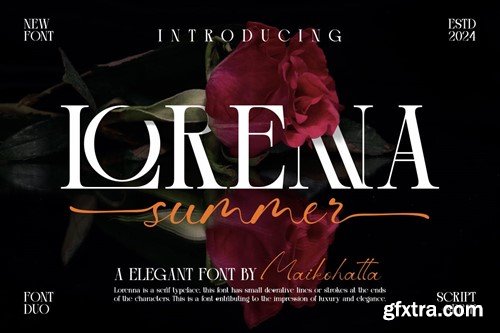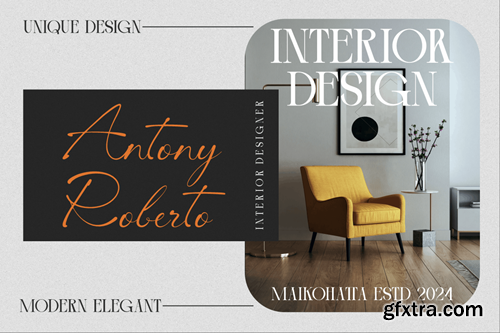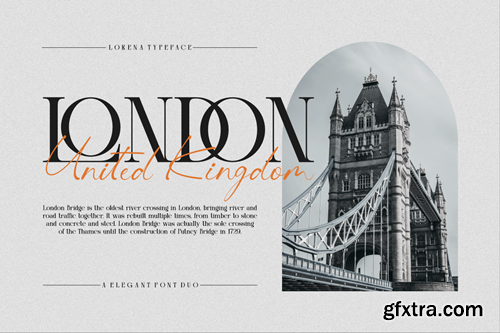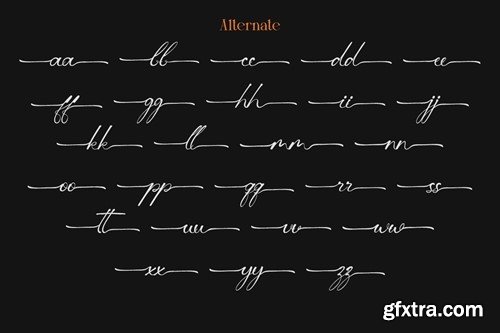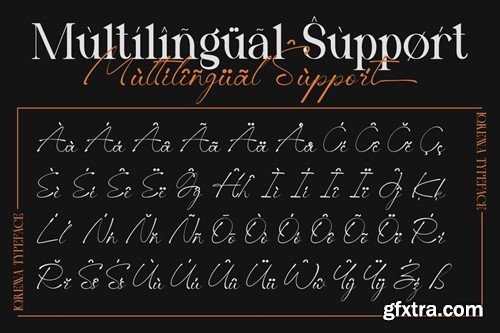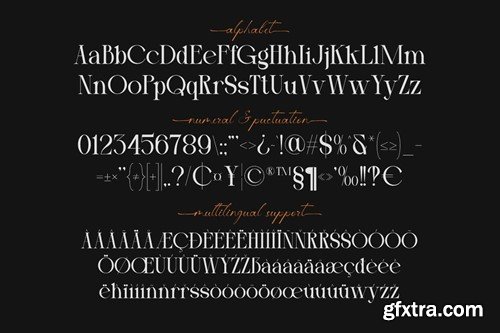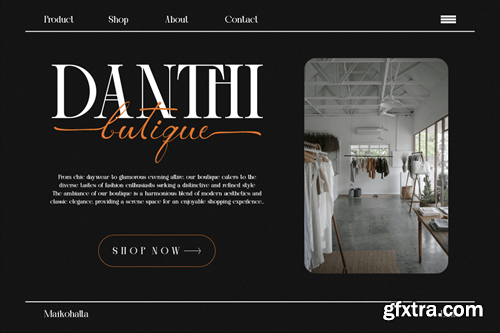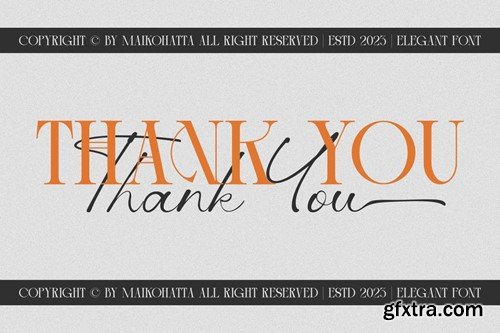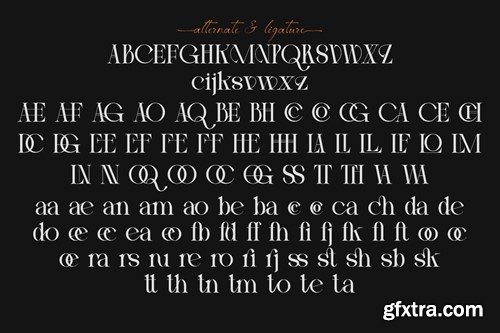
洛伦娜 - 精致 duo 字体 VS86LWP
Introducing our new product Lorenna Elegant Duo Font This collaboration between serif and script fonts combines the elegance of serifs with the warmth of script handwriting. Serif fonts provide a structured base, while script fonts add a touch of creativity. The result is a contrasting yet eye-catching visual harmony, perfect for conveying messages from formal to personal with a uniquely alluring style. The collaboration between serif and script fonts is suitable for various designs such as invitations, brand promotional materials, books, greeting cards, logos, web designs, and presentations. This collaboration provides the flexibility to convey messages in an engaging style on a variety of project types, striking a balance between formal and personal looks. availlable